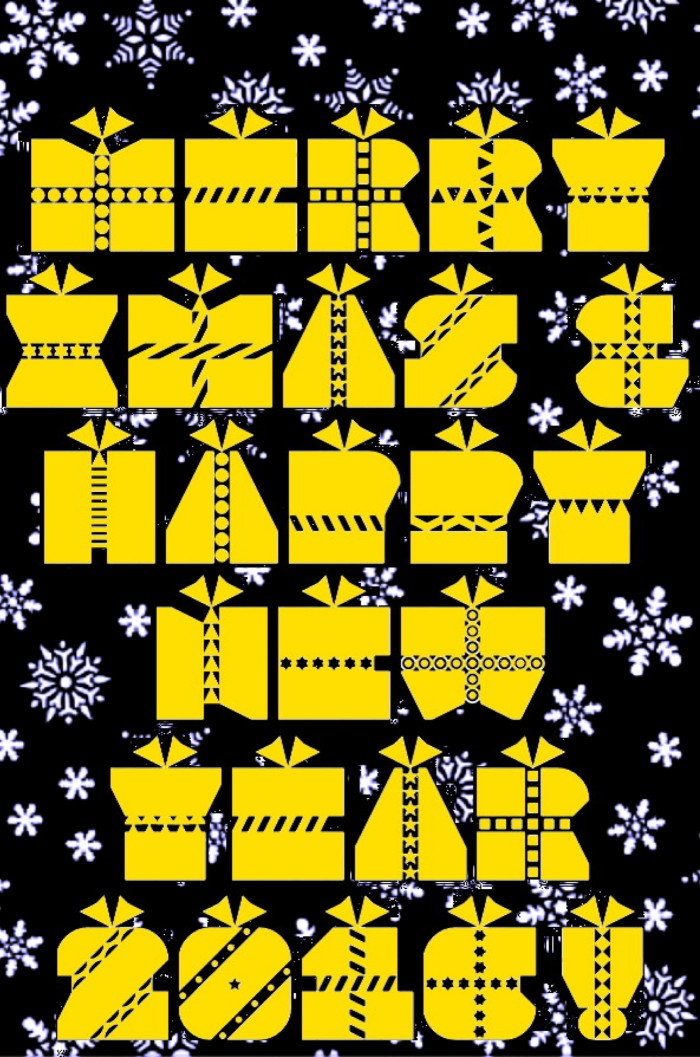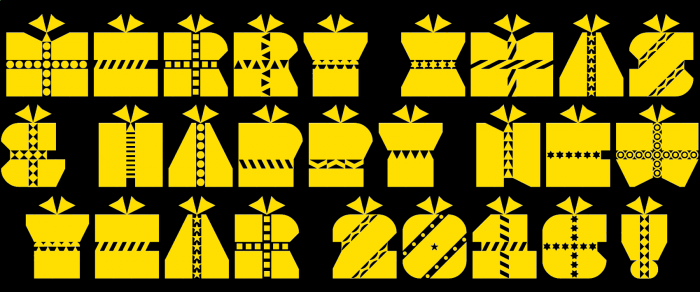
Work in progress.
What a wonderful set of gifts!! A happy festive season to you, too :)
Very festive, I love it! Feliz navidad!
Wow, looks very cheerful!
I love it! It embraces the Christmas season, but it's also fun enough to use throughout the year for celebratory festivities.
Great font! When Christo and Neville Brody get together to celebrate Christmas, this will be under the tree...
These are really nice packed letters. Each of them a small gift. Very nice idea.